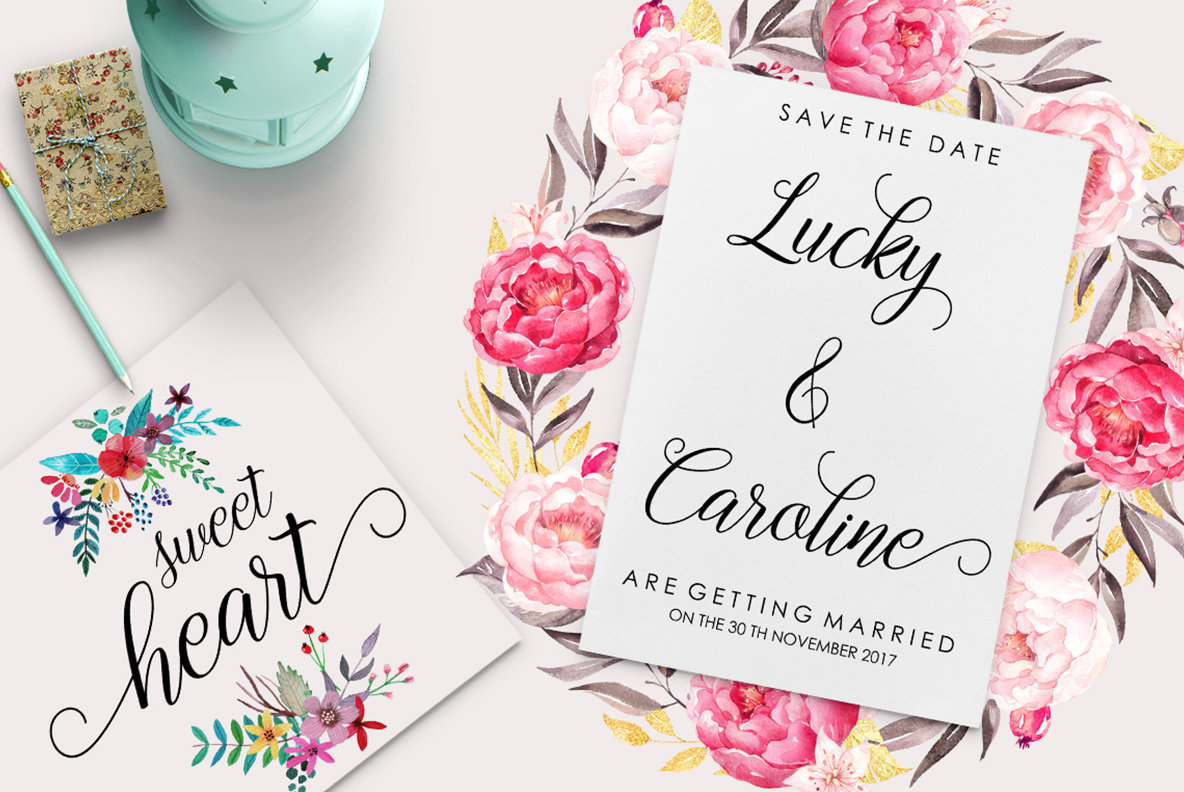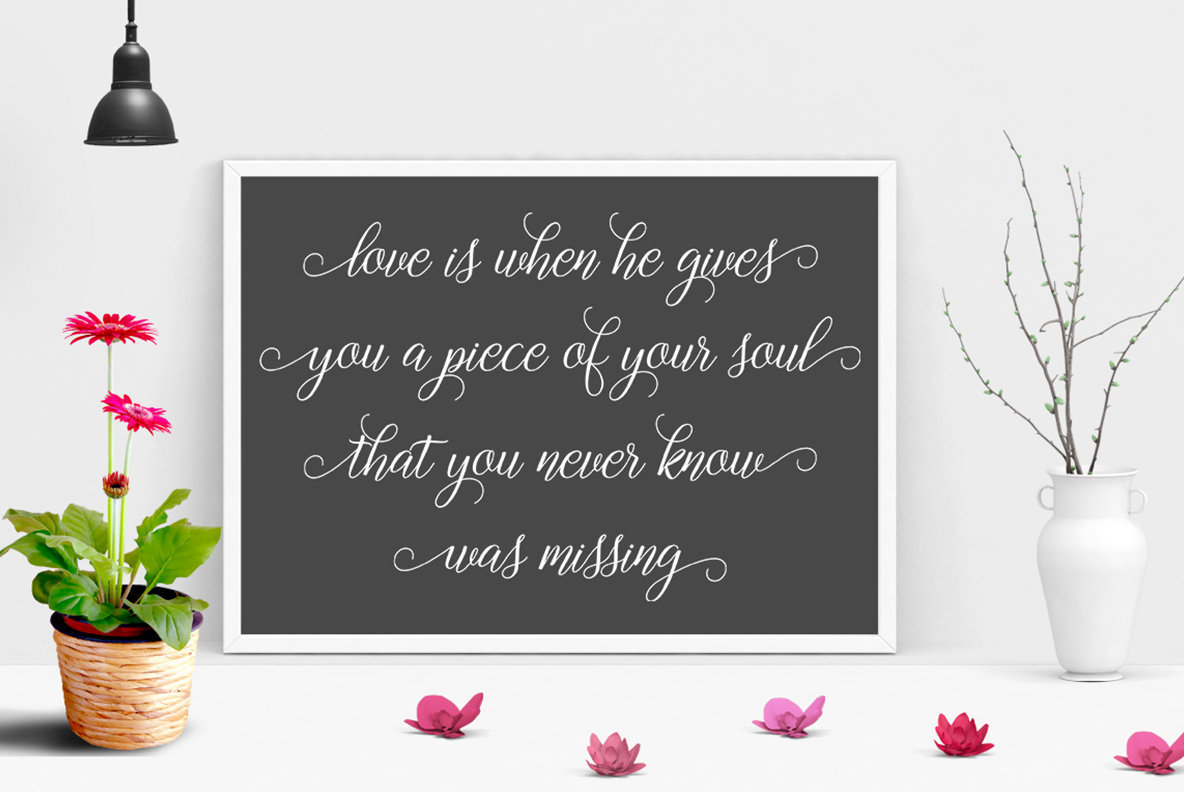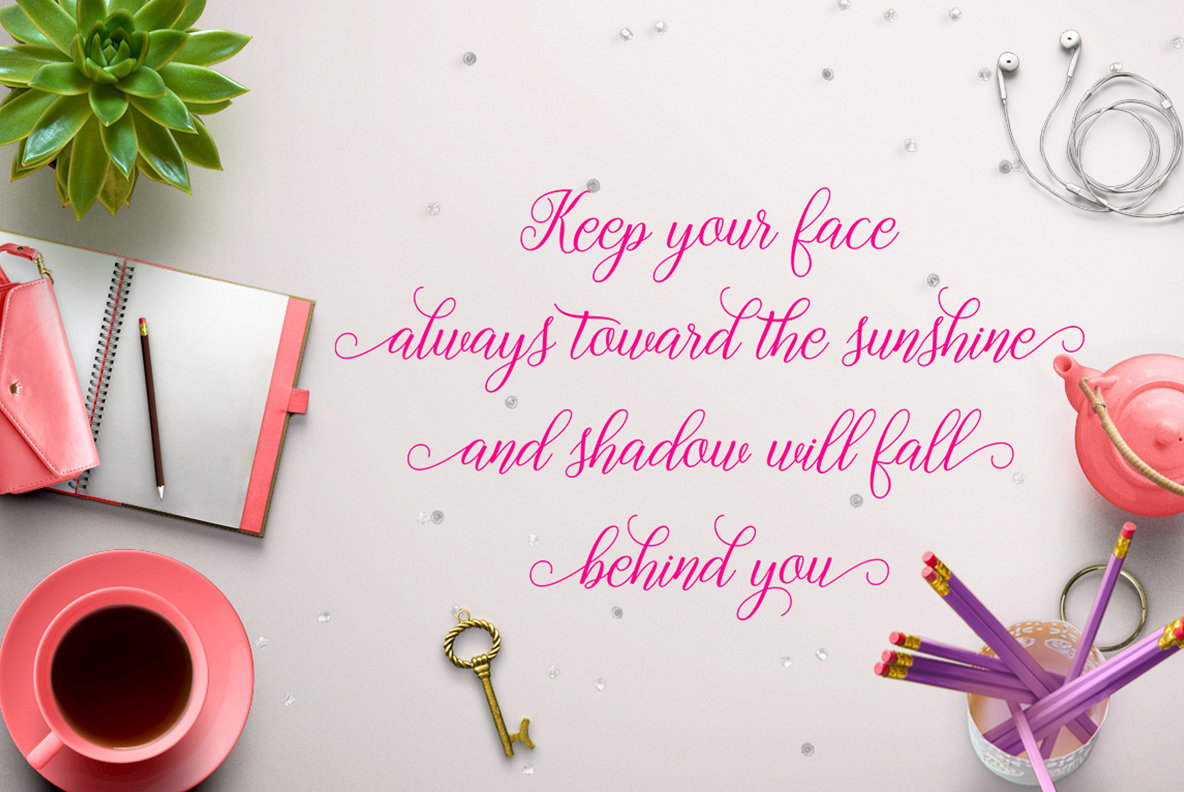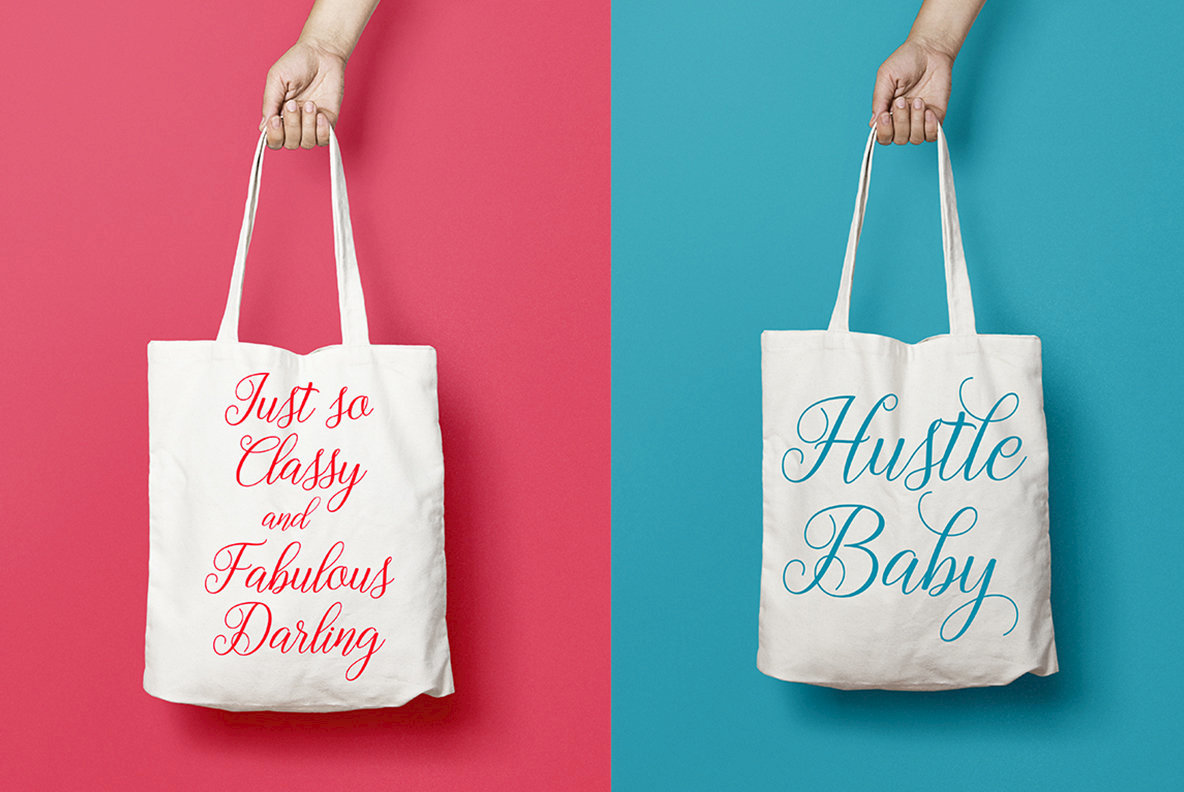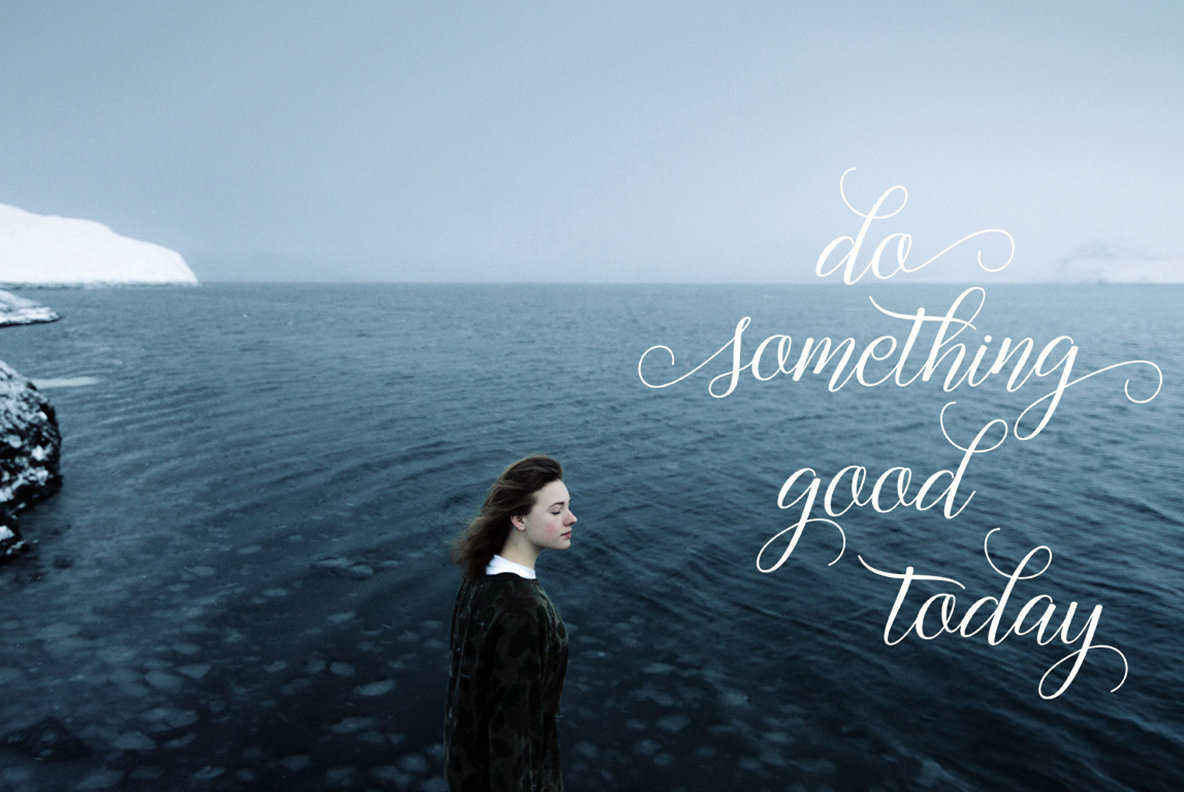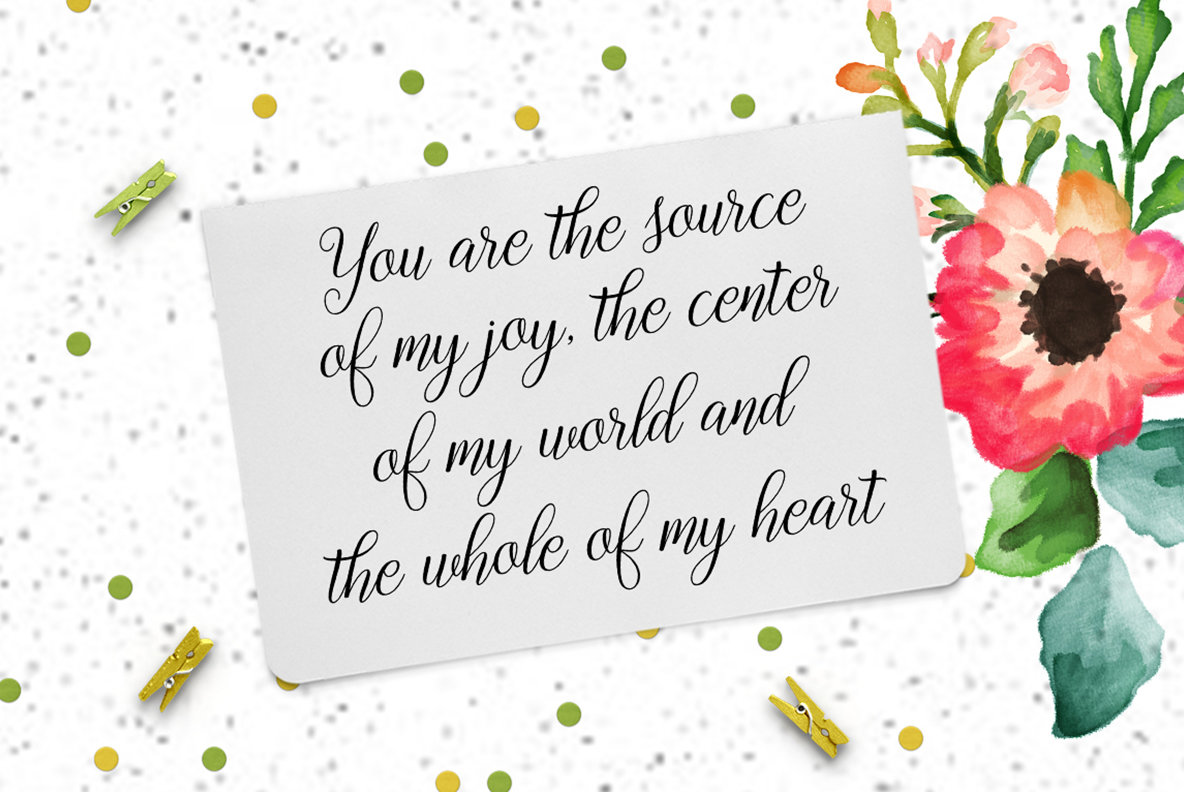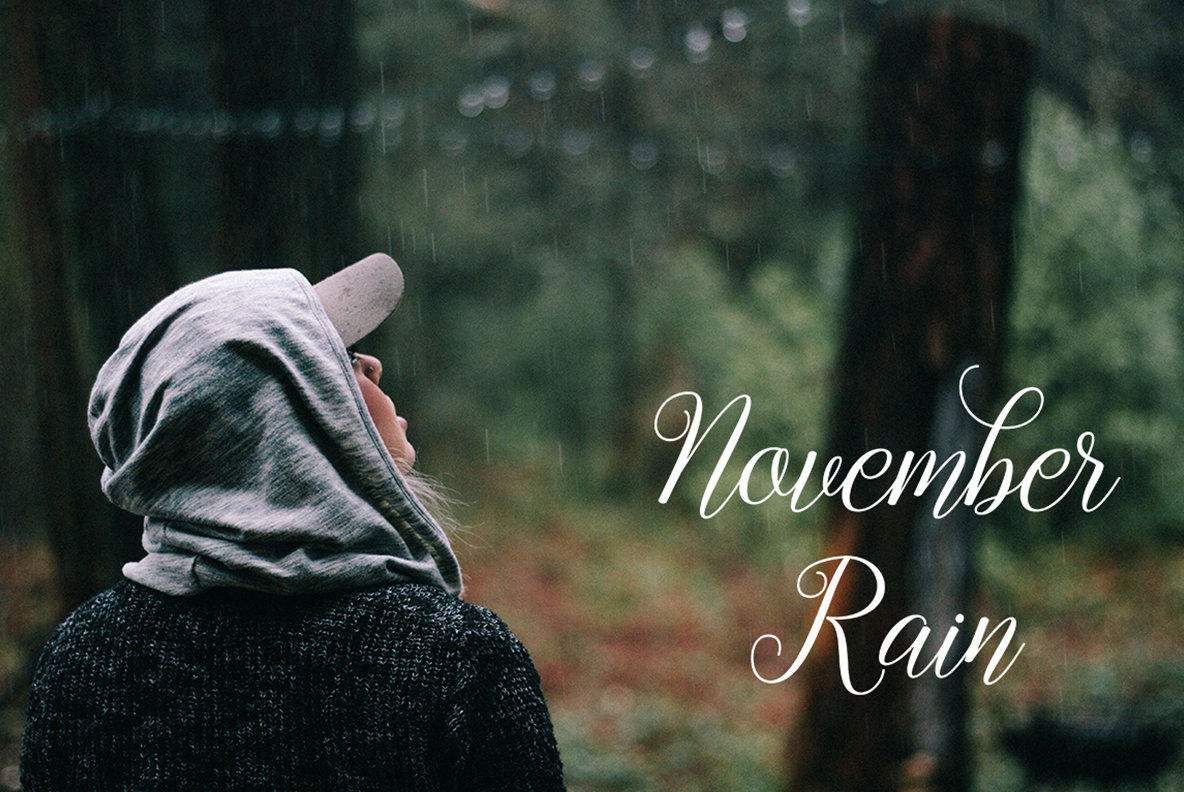
Gebrina Font
Gebrina by Megatype offers an enchanting blend of modern calligraphy with its elegant Regular and Bold styles. This font is both casual and sophisticated, featuring delightful swashes that enhance its charm. Ideal for diverse applications, Gebrina can elevate your designs on logos, product packaging, and wedding invitations. Additionally, it serves as a graceful touch to branding initiatives, headlines, signage, labels, and more. For optimal use, software that supports OpenType features—such as Adobe Illustrator CS, Adobe InDesign, CorelDraw X6-X7, or Microsoft Word 2010 or later—is recommended.Gebrina: A Charming Modern Calligraphy Script